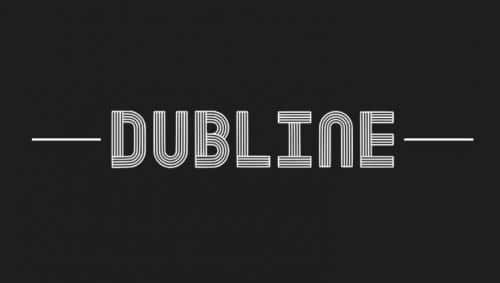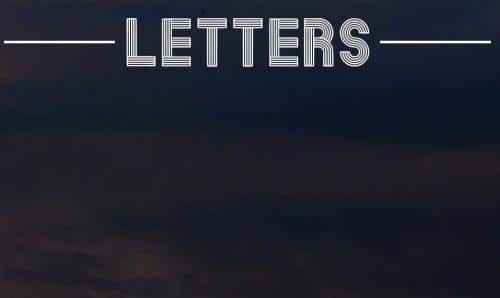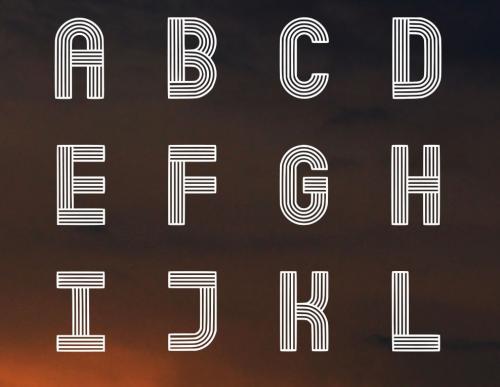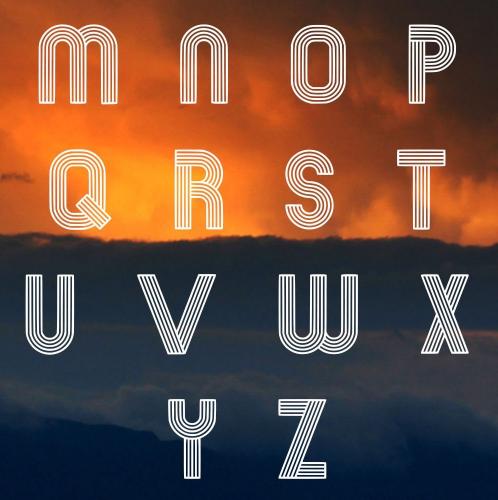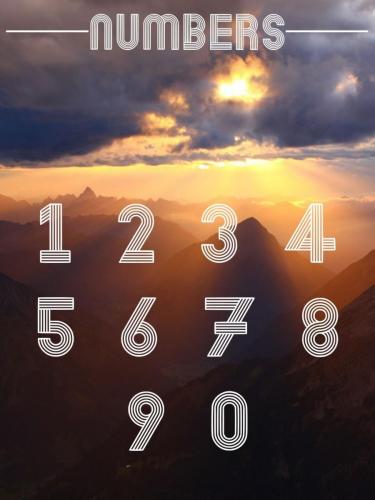
If you are looking for a large Type Display font, this is a good choice. Introducing Dubline Typeface. Dubline designed and shared by Stephane P, a professional designer from Rose Hill, Mauritius.
The font is of high quality, meaning that while using the font in big size, you will see better details of it. For this font a-z uppercase characters and 0-9 numbers were created. if you would like to have glyphs and lowercase characters for this font let me know in the comment section, it can be very appropriate for posters and logo designs with its retro/modern look.